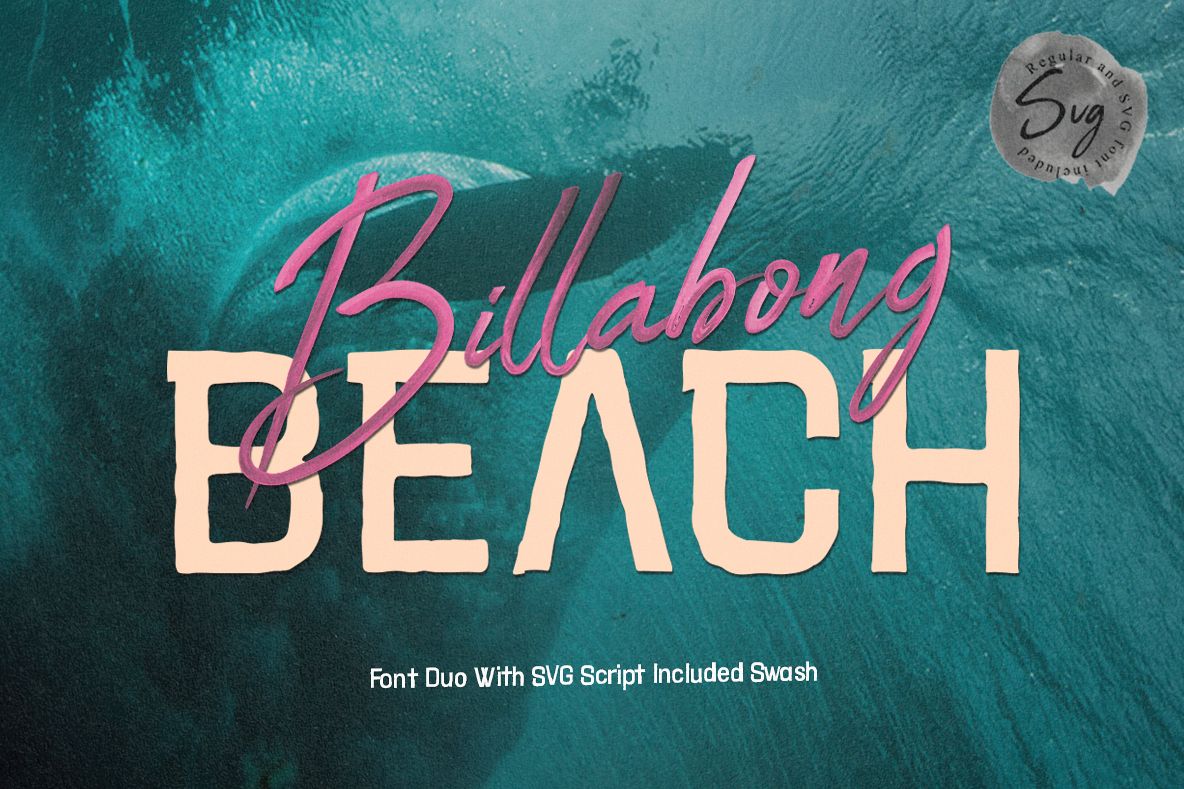
Billabong Beach SVG Font Duo
Billabong BEACH is a font collaboration between script and sans-serif, where the script font has SVG features. when you are looking for a font that looks wild but still elegant, this is the place.Billabong BEACH was created for that. looks manly, wild, strong and naughty. very suitable when you get a project related to Cafe Racer, fonts for the Barber Shop, fonts for a magazine, flyers, logos, T-shirts and anything else. You will get a typeface Font Script with SVG Format, Normal, and complete with swash to enhance your design's appearance. and you will also get a sans-serif version that is equipped with multilingual, alternative and has more than 300 Glyph features